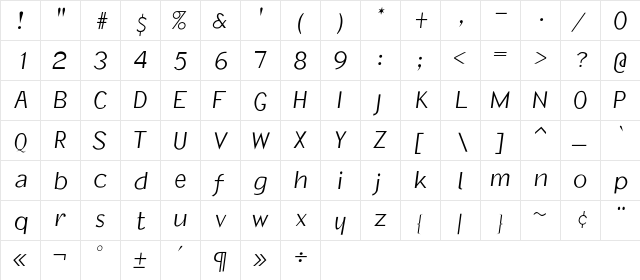
InformalOblique Regular
Design Context for InformalOblique Typeface
InformalOblique is a composed and adaptable typeface that performs quietly and consistently across a wide range of design contexts. The dynamic lean of this cut emphasises speed and emphasis in any layout.
Pro Tip: Use InformalOblique for emphasis, pull quotes, and subheadings where its slanted energy can add rhythm to the layout.